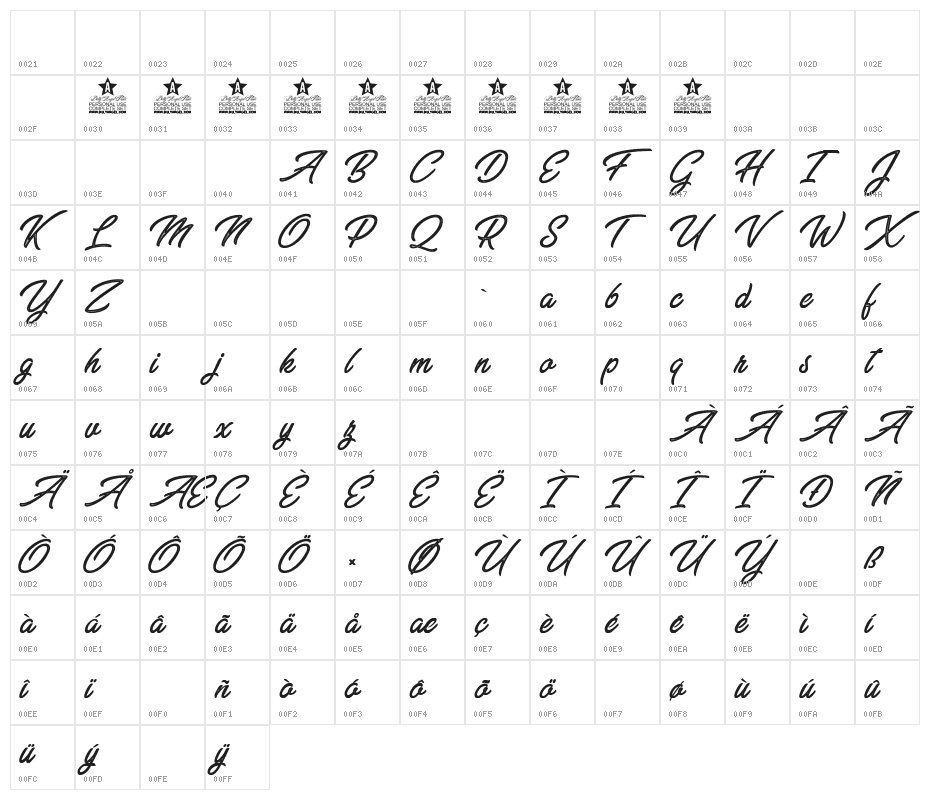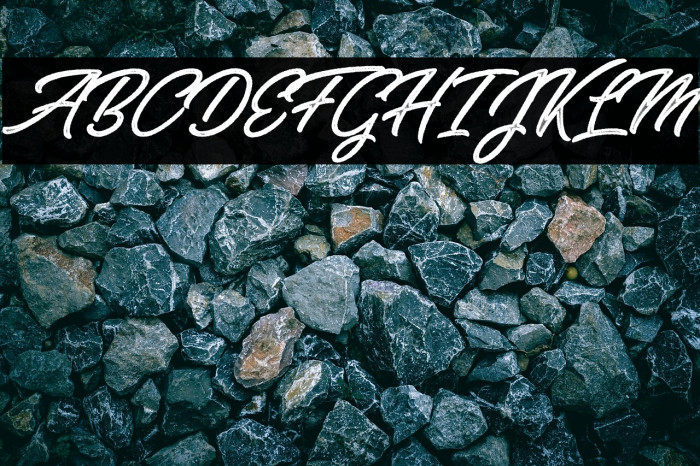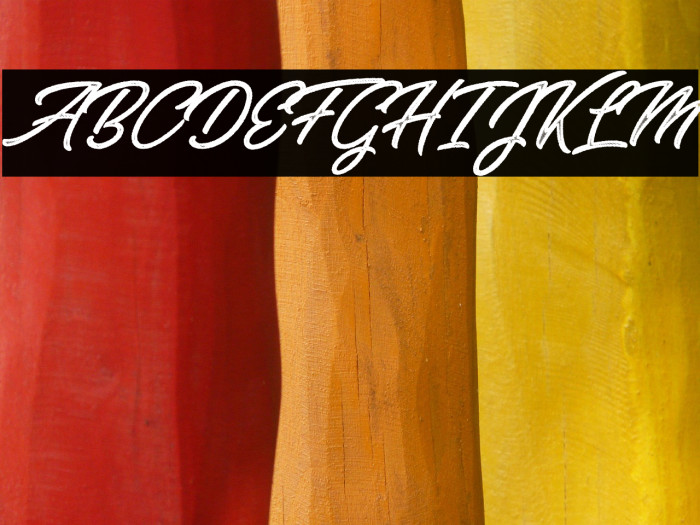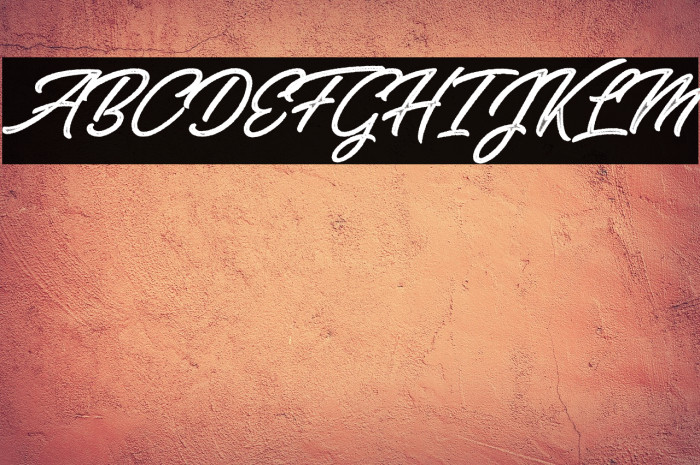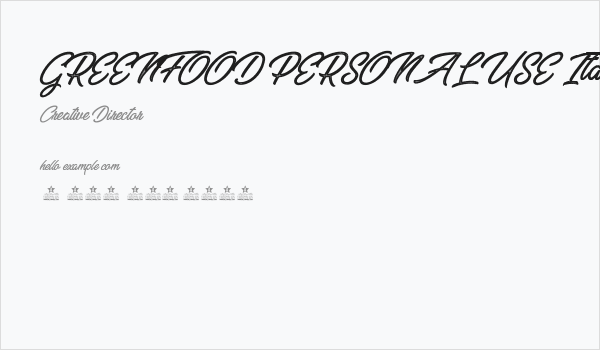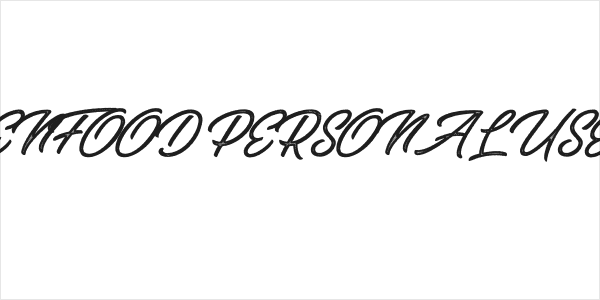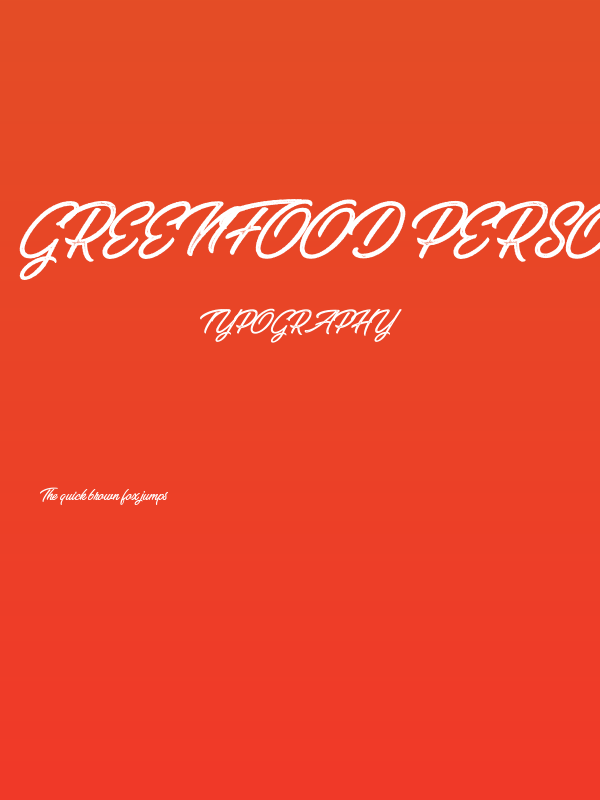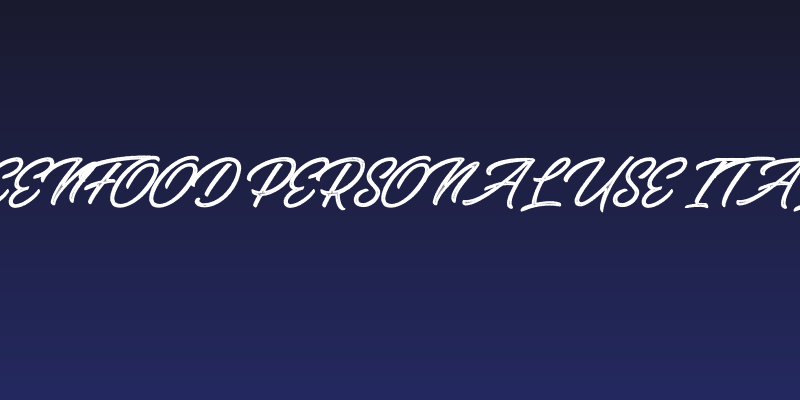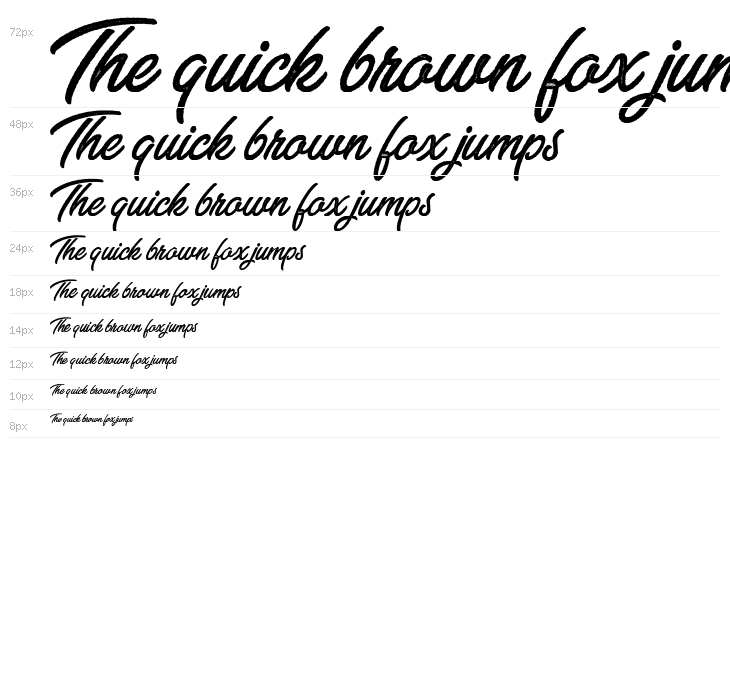
GREENFOOD PERSONAL USE Italic Font
GREENFOOD PERSONAL USE Italic Description
This font exhibits a flowing, cursive style with a pronounced slant, giving it an elegant and dynamic appearance. The letters are interconnected, enhancing its script-like quality, while maintaining readability. The uppercase letters are bold and sweeping, with distinctive loops and flourishes, adding a touch of sophistication. The lowercase letters are more compact, yet they maintain the same fluidity and grace. The overall design is reminiscent of traditional calligraphy, making it suitable for projects that require a personal or artistic touch. The font's italic nature enhances its expressive quality, making it ideal for creative and decorative uses.